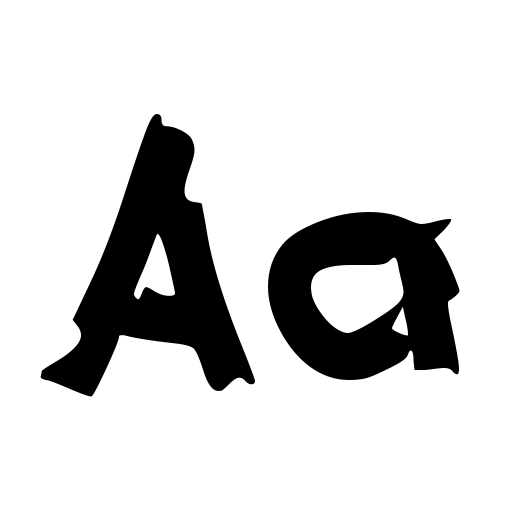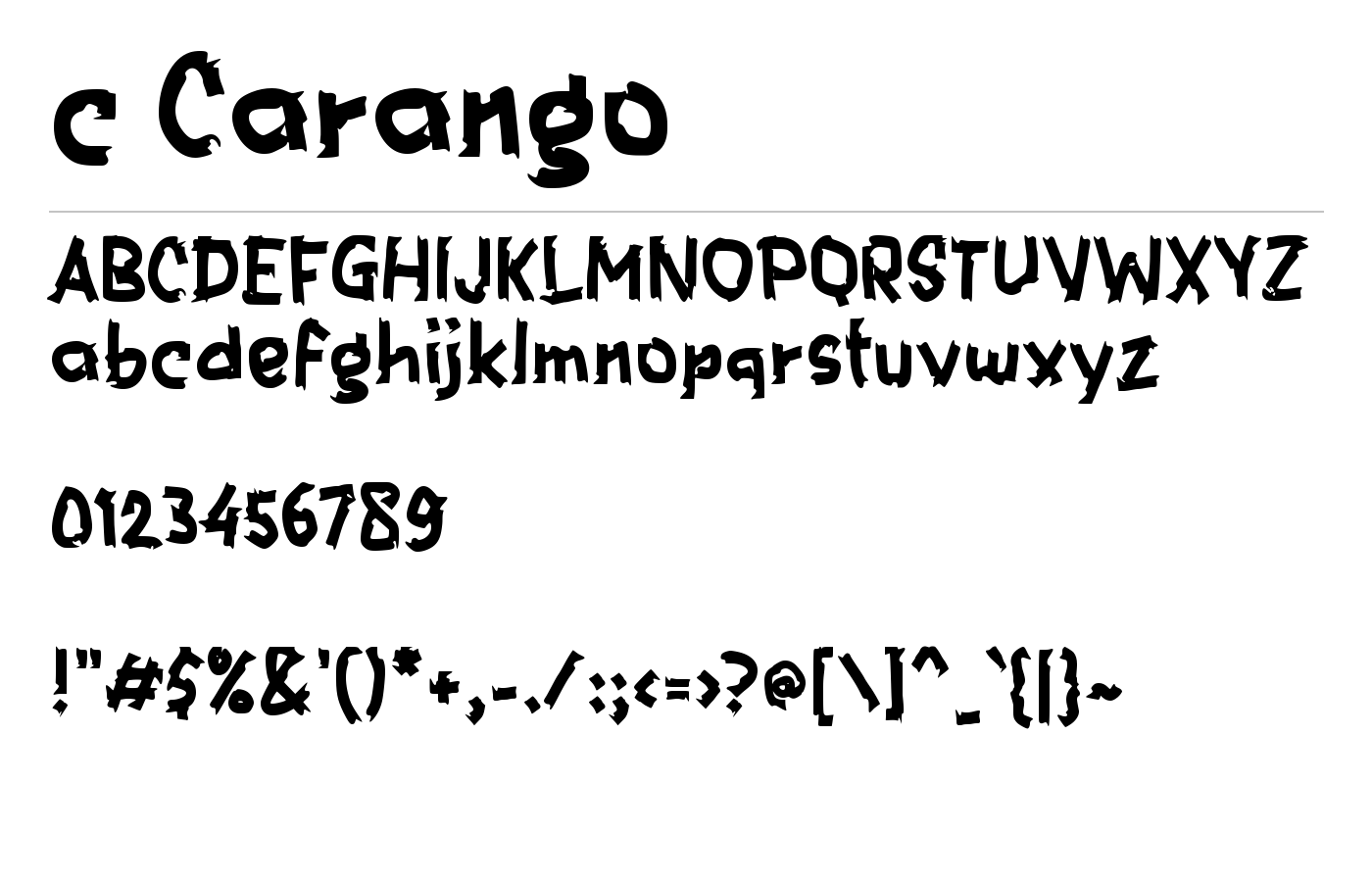
Carango is a quirky, bold sans serif font with irregular, jagged edges that give it a playful, hand-crafted feel. Its uneven stroke widths and slightly condensed letterforms make it stand out with a lively, informal personality, perfect for creative projects, youth-oriented branding, and eye-catching headlines. This font brings a unique, energetic vibe to designs needing a touch of fun and spontaneity.
c Carango Font